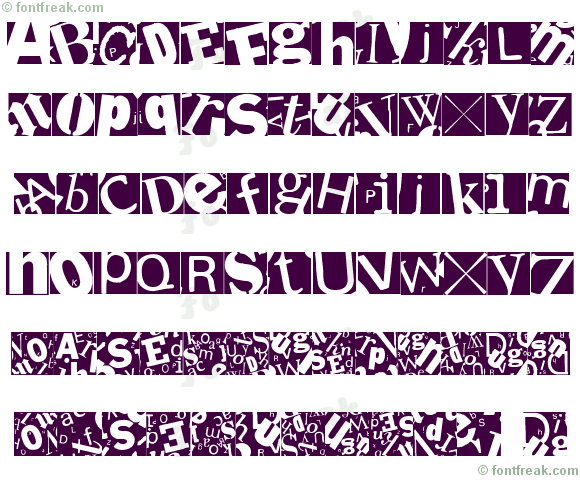
LetterSoupMainz
About LetterSoupMainz
LetterSoupMainz by Manfred Klein is a distinctive decorative font that stands out with its playful and artistic flair. This font features a unique mix of uppercase and lowercase letters, showcasing an eclectic style that combines various shapes and forms. The irregular stroke weight adds an element of whimsy, making it an ideal choice for projects that require a touch of creativity. The spacing is thoughtfully designed to maintain readability while allowing the individual letterforms to shine, creating an engaging visual experience.
The versatility of LetterSoupMainz makes it suitable for a wide array of applications. It excels in creating eye-catching wedding invitations, where its artistic nature can convey a sense of elegance and fun. Additionally, the font is perfect for movie posters that aim to capture attention and intrigue viewers with a unique aesthetic. Restaurant menus can also benefit from this font, as it adds a lively character that reflects a vibrant dining atmosphere. Furthermore, graphic designers and content creators can use LetterSoupMainz in branding projects or social media graphics, ensuring that their designs stand out in a crowded digital space.
What sets LetterSoupMainz apart is its ability to blend fun and functionality seamlessly. Its distinctive character and artistic charm make it a valuable addition to any designer's toolkit, enabling creative expression in a variety of design contexts.